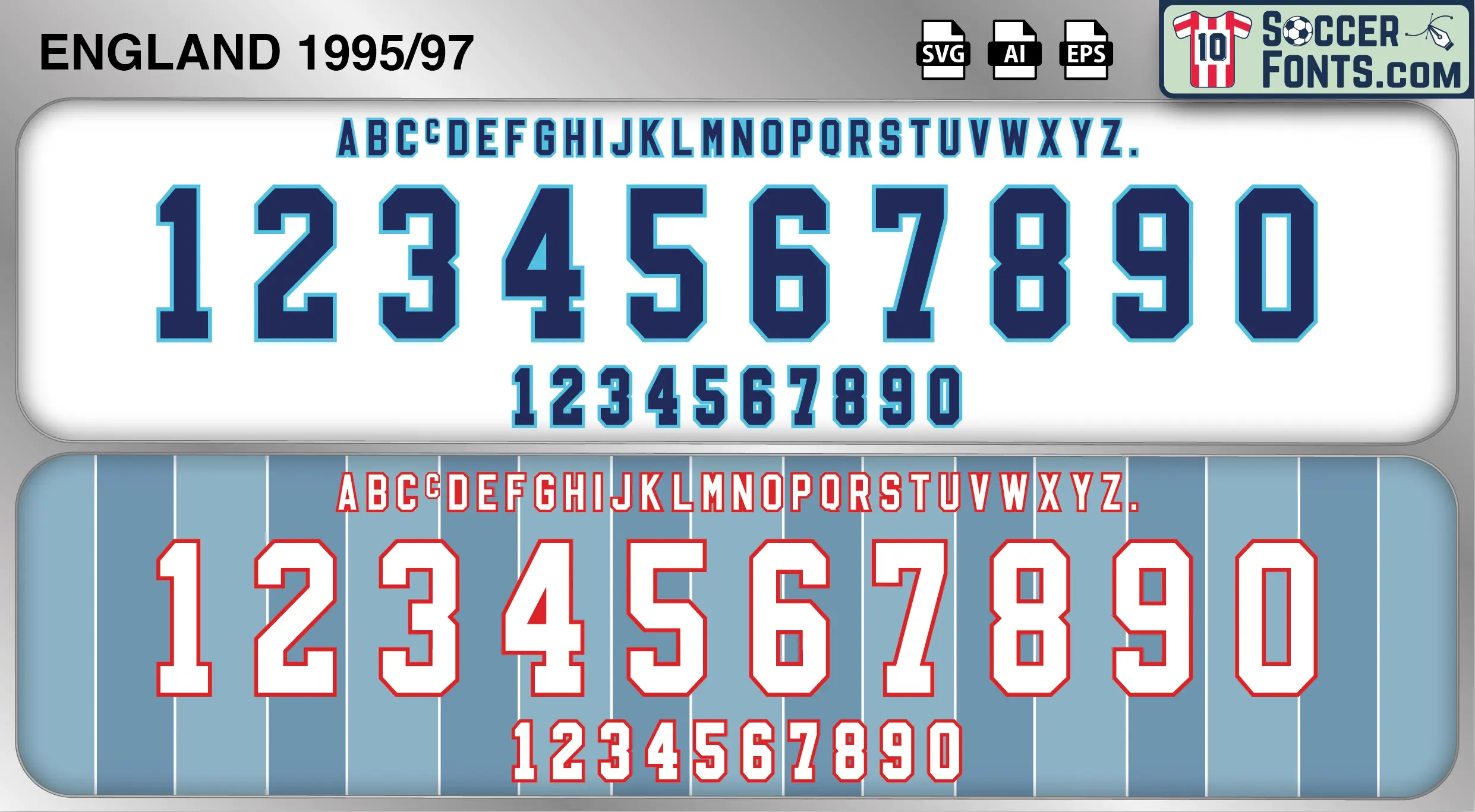
England 1995-97 Font
The England 1995-97 font is an editable soccer jersey lettering design in vector format inspired by the England kit style used during the 1995-97 football seasons. This football font artwork is prepared for football shirt recreations, custom jersey projects, football kit mockups and sports graphic design workflows.
The 1995-97 period is inseparably linked with UEFA EURO 96, one of the most iconic tournaments in English football history. Hosted in England, the competition generated enormous excitement across the country and helped reignite national enthusiasm for the international game. The England squad featured players such as Alan Shearer, Paul Gascoigne, David Seaman, Teddy Sheringham, Darren Anderton and Tony Adams, forming a team that produced some of the nation’s most memorable tournament moments. England progressed to the semi-finals, with Shearer finishing as the tournament’s top scorer and Gascoigne delivering one of the defining goals of the decade against Scotland.
The England 1995-97 font became associated with the atmosphere, optimism and football culture of EURO 1996. England shirts from this era remain among the most beloved national team shirts ever produced because of their connection with a tournament that helped define a generation of supporters. The England 1995-97 font reflects a period of renewed national pride and football nostalgia, capturing an era that continues to occupy a special place in the history of English football and international tournament culture.